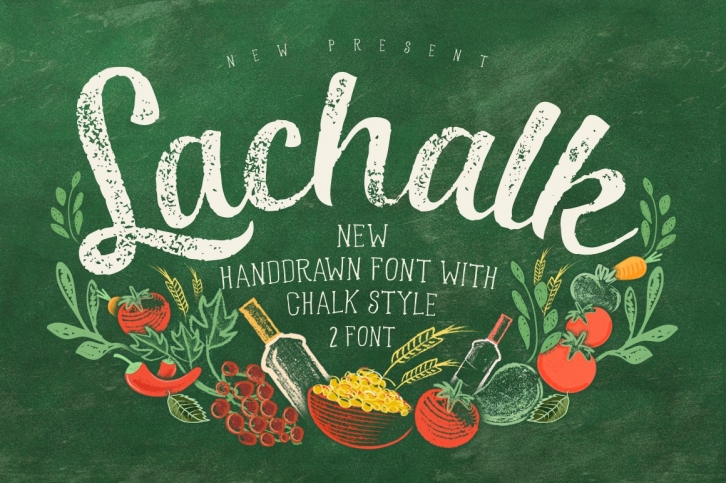
LaChalk Typeface + Extras is a beautiful font that was designed by panji. It's a great choice for designers and creatives who need such a font. It was released on May 3, 2017 and the file size is 6.67 MB. LaChalk Typeface + Extras may give a more youthful, expressive and casual look to your project. It is a very beautiful, refined, elegant, and high-quality font.